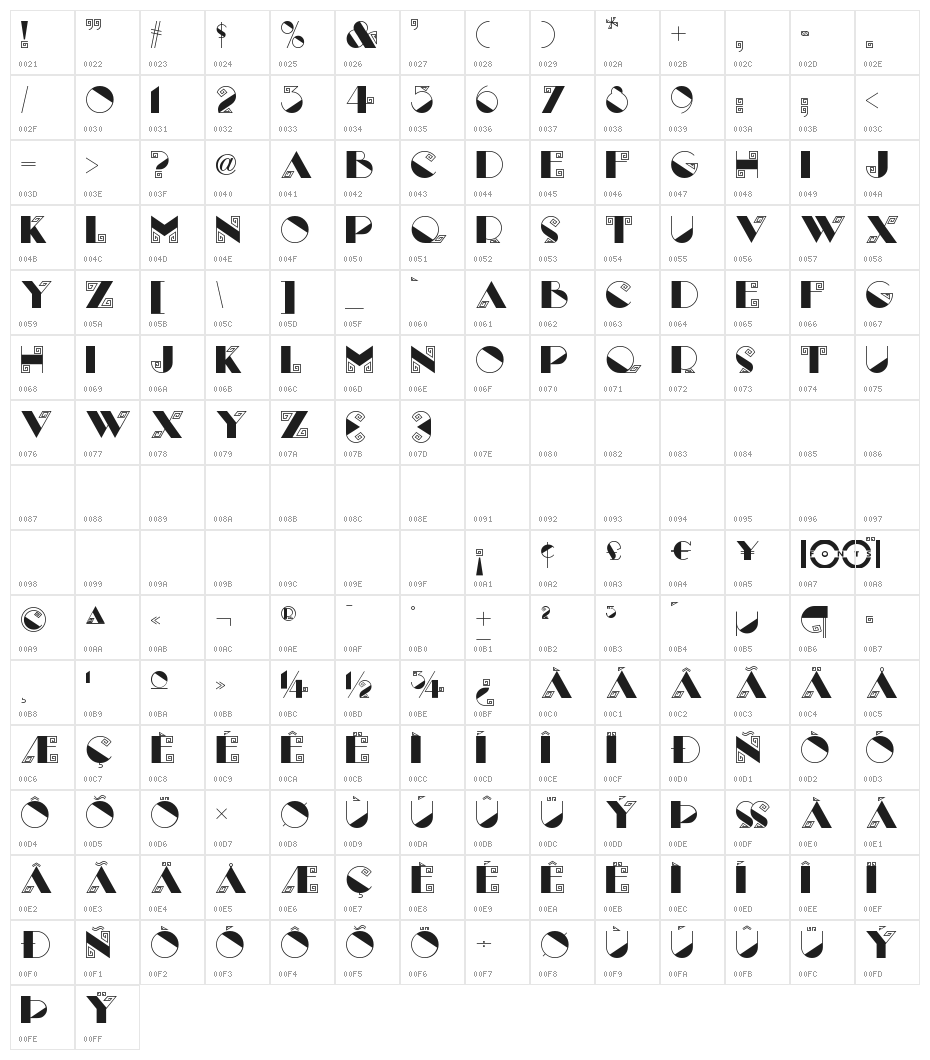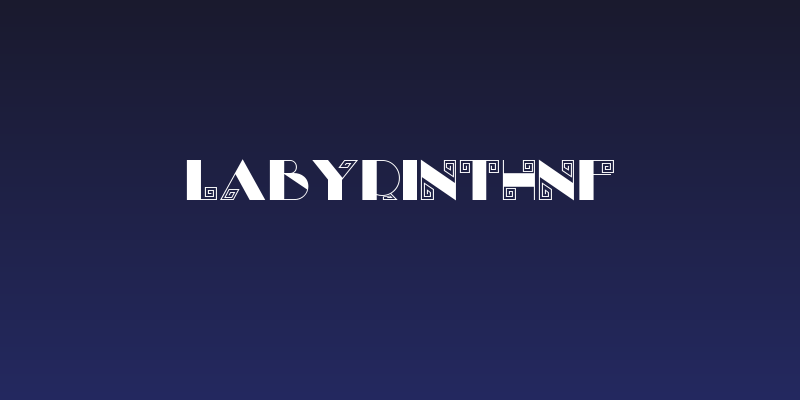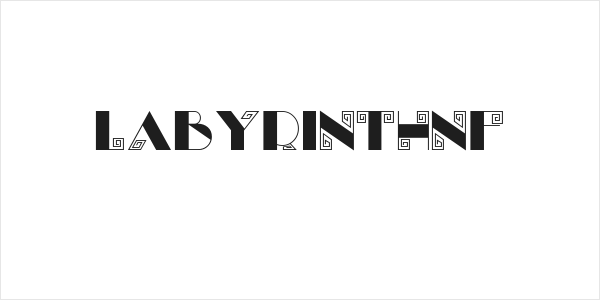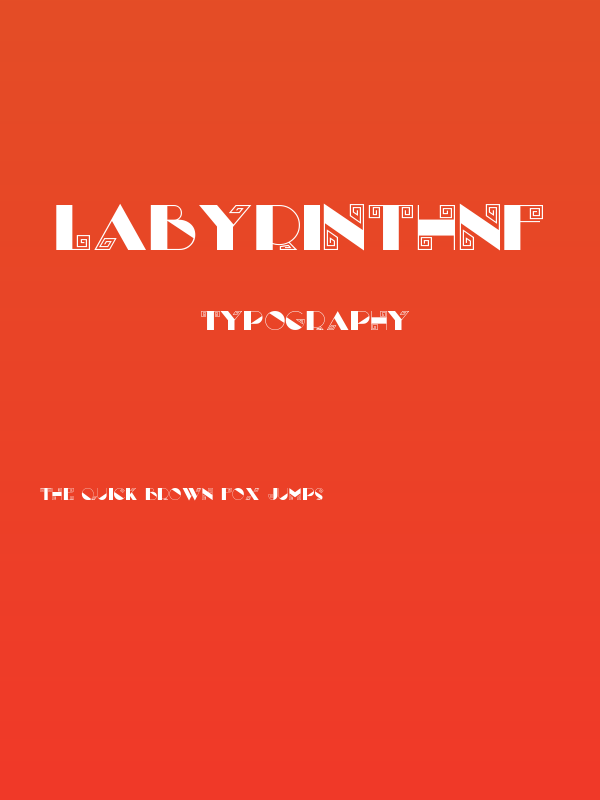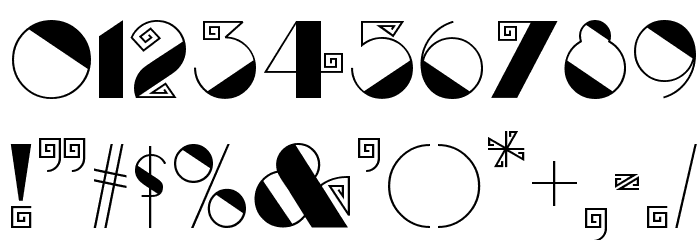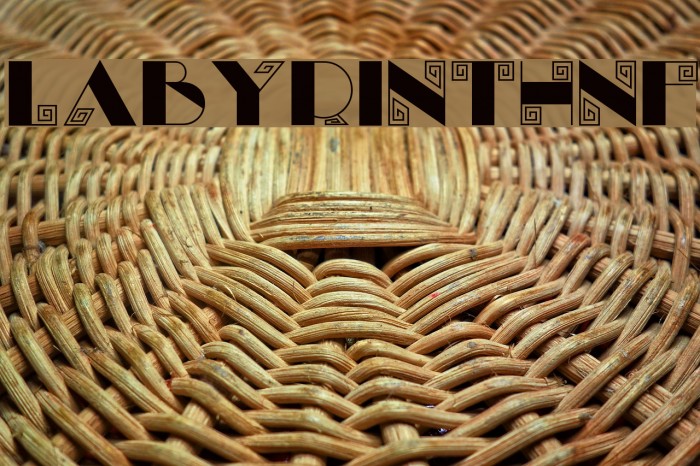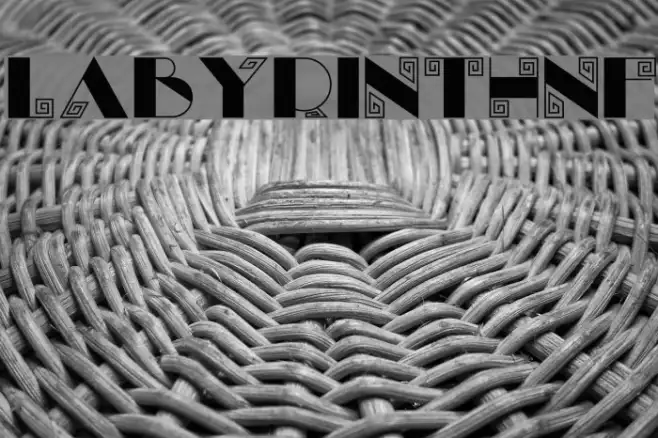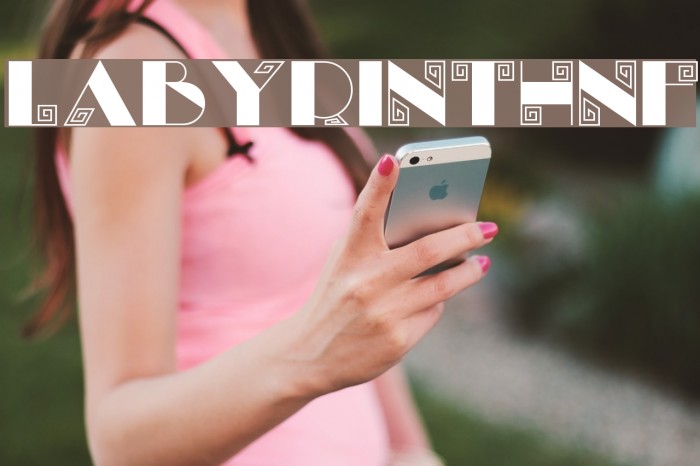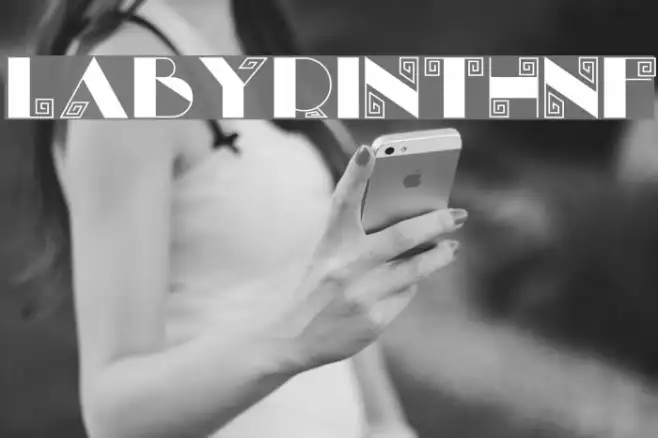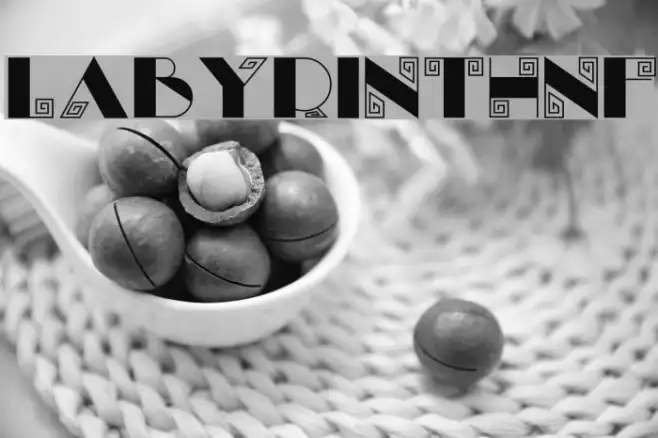
LabyrinthNF Font
LabyrinthNF Description
This font features a bold and decorative style with a unique geometric flair. Each character is designed with intricate patterns and shapes, incorporating elements reminiscent of labyrinths or mazes. The uppercase and lowercase letters maintain a consistent aesthetic, with angular and circular motifs that create a visually striking appearance. Numbers and special characters follow the same design principles, ensuring uniformity across all glyphs. The font's boldness and distinct style make it ideal for projects that require a strong visual impact.